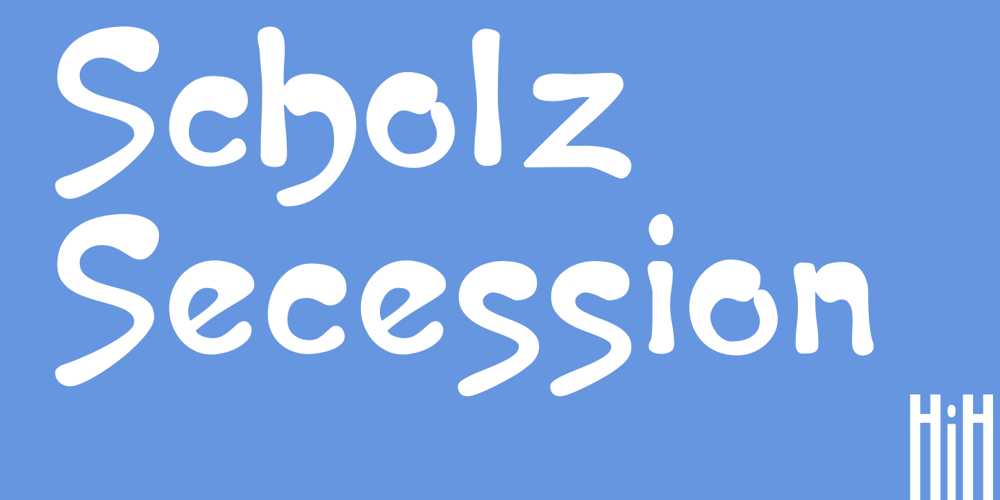
Scholz Secession Font Family was designed by published by HiH. Scholz Secession contains 1 styles and family package options. We named this font Scholz Secession. Fin-de-siecle Vienna, Austria is the source of this Jugendstil design from Schriftgiesserei Eduard Scholz. The original release was under the name Reklameschrift Secession. Most of the curve strokes look like commas to me. The letters are as soft and plump as the comforter on the bed I slept on in a Salzburg B&B many years ago. I was traveling with a college buddy and our next stop was Vienna. There a kind, young student named Hanna and her boyfriend took us under their wing. One of the places Hanna proudly showed us was Otto Wagner’s Majolika Haus, built in 1898, and only about 8 blocks from Secession Hall. Hanna explained to us that the style was called Jugendstil and represented Art Nouveau as interpreted within the framework of their culture. I even took a picture. After all, memories are part of who we are. Figures are old-style for text use. This font would not be my first choice for a spread sheet. Included are German ligatures ch (alt-0123) & ck (125), two period ornaments (135, 175) and lower case o and u with Hungarian long umlaut (215, 247)). A very likeable and easy-to-use font.